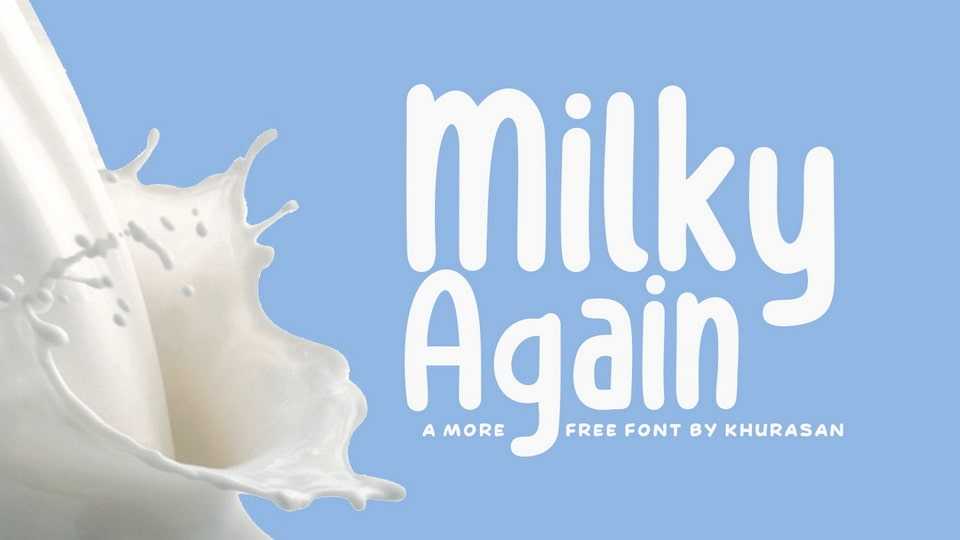
Download Milky Again font, a smooth, natural handwritten typeface designed to bring good vibes. Whether you need it for comic books, organic goods branding, or social media and blogs, Milky Again font is the perfect choice for a truly authentic look.